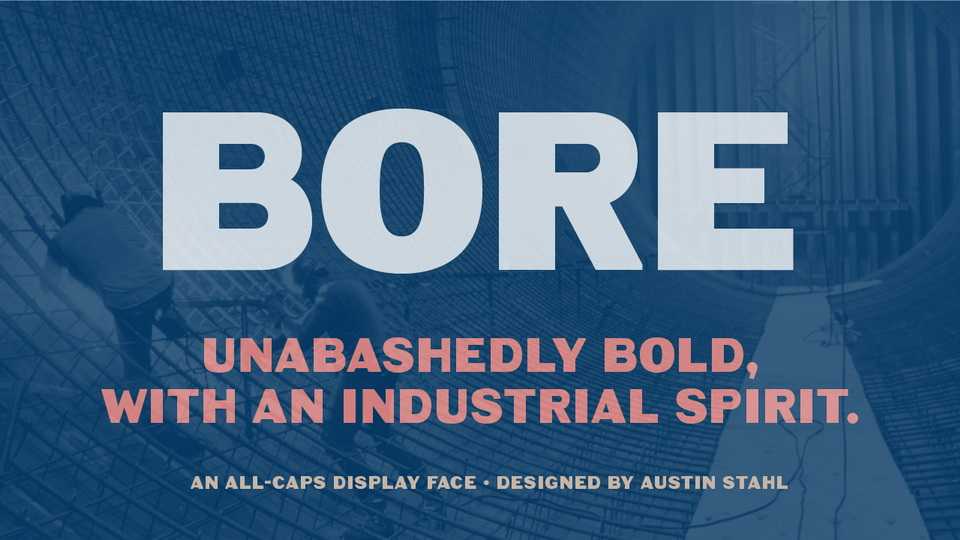
Download Bore font, a bold, all-caps display typeface inspired by some unusual mid-20th-century fabricated signage above the entrances to the Baltimore Harbor Tunnel.
Designer: Austin Stahl